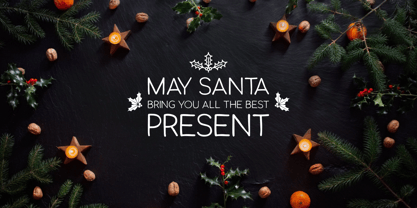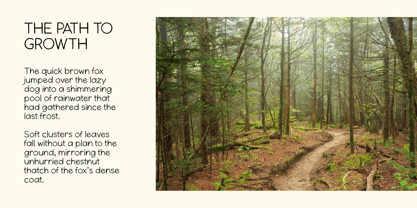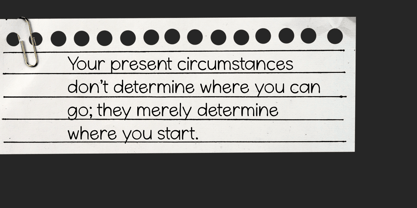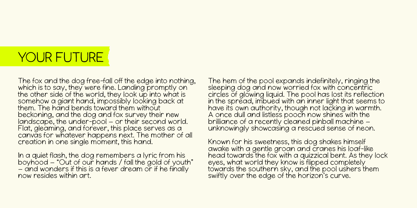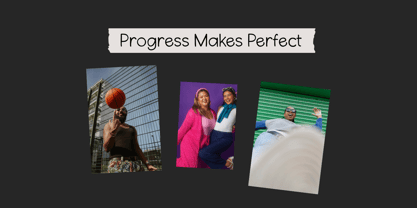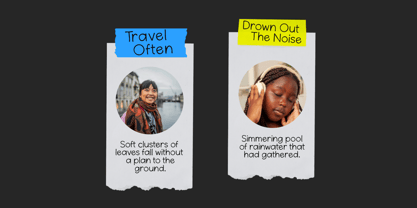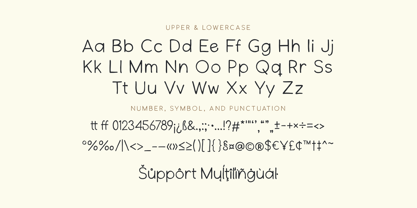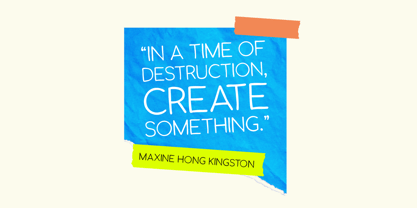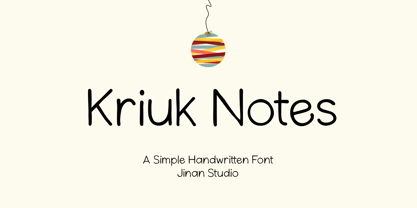
Kriuk Notes
by Jinan Studio
The Kriuk Notes Font Family was designed by Andi Syahdang, Ainun Jinan and published by Jinan Studio. Kriuk Notes contains 1 styles.
Kriuk Notes is a playful and easy-to-read handwritten font. Its simple and smooth characters make it perfect for personal notes and journaling, invitations and greeting cards, social media posts and stories, branding and logo design, Creative posters and flyers, and more. Add a friendly touch to your projects with the charming style of Kriuk Notes.
Features
• A set of uppercase and lowercase glyphs
• Number, symbol, and punctuation
• Multilingual Support
• Ligatures